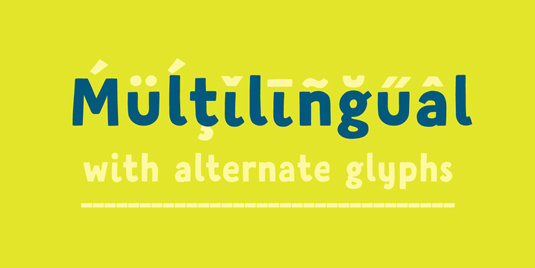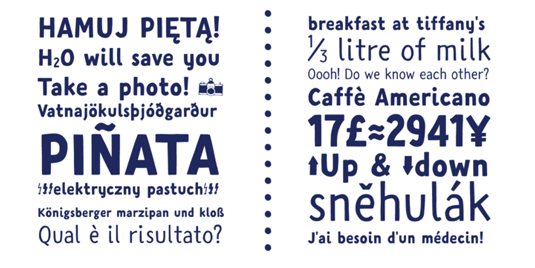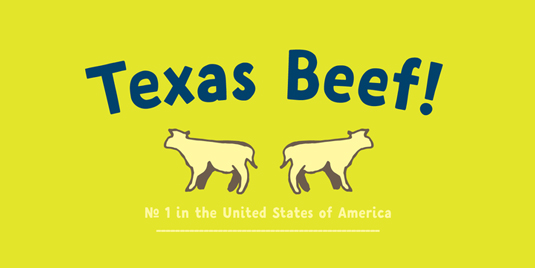
Font of the day: Fela
Every day we showcase the best fonts on the web. Today it's Fela by Maciej Włoczewski.
Fela by Maciej Włoczewski
Created by Maciej Włoczewski, today's typeface of choice Fela was designed specifically for books and posters for young children. Available from MyFonts, it states: "Every glyph was hand drawn and shaped for better result. This typeface consists of different alternate glyphs with special automatic script, many special characters for different languages and pictograms."